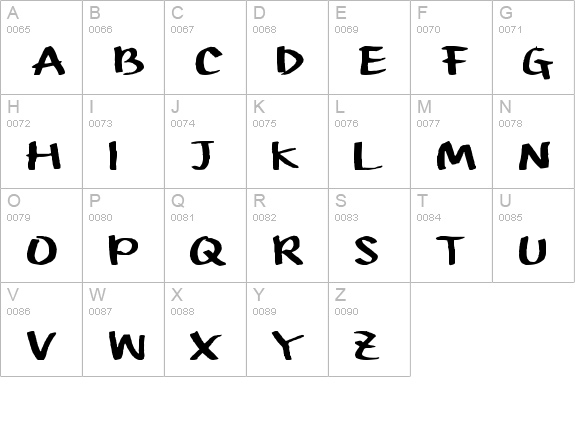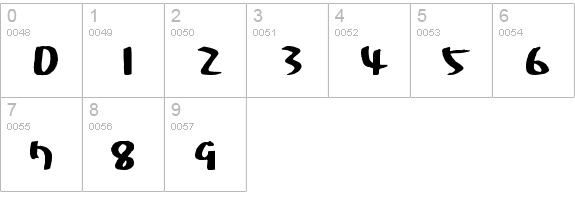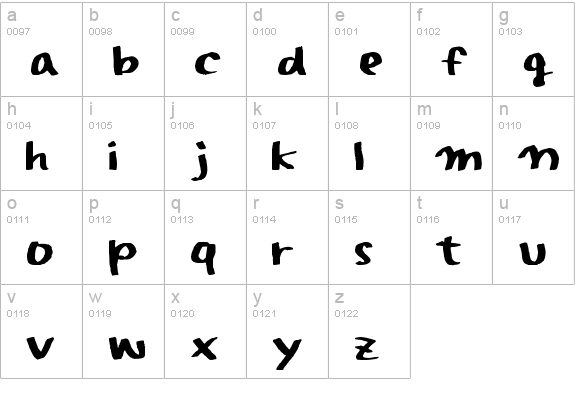
HolidayBold Font Details
Introducing HolidayBold font, a fun and festive typeface that is perfect for adding a touch of cheer to your designs! With its bold and playful aesthetic, HolidayBold is sure to make a statement and capture attention. This versatile font is great for holiday-themed projects, party invitations, greeting cards, and more. The best part? HolidayBold is available for free download at FontsMarket.com! So go ahead and grab this delightful font to bring a festive flair to your next creative project. Let HolidayBold be your go-to choice for spreading holiday joy with its unique style and bold presence. Download now and let your designs shine with HolidayBold!